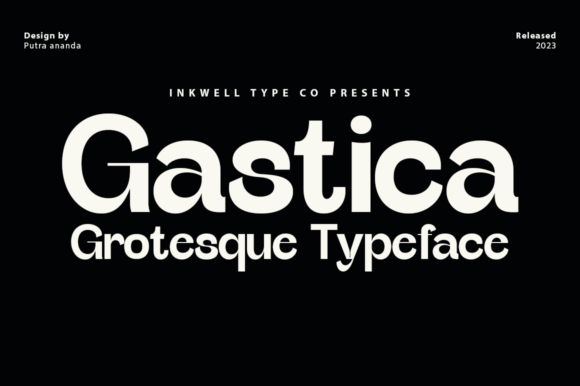
Gastica Font: Elevate Your Designs with a Touch of Elegance and Boldness
In the world of typography, a font can make or break a design. It’s the perfect blend of style, elegance, and personality that can elevate your project from ordinary to extraordinary. If you’re on the hunt for a font that exudes confidence, sophistication, and a dash of modern flair, look no further than Gastica Font. This stunning display font is crafted to turn heads, spark curiosity, and leave a lasting impression.
The Allure of Gastica Font
Gastica is an alluring and dazzling display font that boasts unique letterforms and a modern style, making it the perfect choice for designers and crafters looking to add a touch of glamour to their work. With boldness in every letter and an elegant style that strikes the perfect balance between strength and sophistication, Gastica is designed to make your message stand out in a crowded digital landscape.
Perfect for Attention-Grabbing Designs
Whether you’re working on a title, logo, or any other design element that needs to draw attention, Gastica Font is the perfect choice. Its bold and elegant style makes it ideal for a wide range of applications, from branding and advertising to packaging and digital media. With Gastica, you can create stunning designs that command attention, spark curiosity, and leave a lasting impression on your audience.
Flexibility at Its Finest
One of the standout features of Gastica Font is its versatility. Available in various variants and font weights, this incredible font provides flexibility in expressing your creativity. Whether you’re looking for a strong and bold look or a more subtle and elegant appearance, Gastica has got you covered. This flexibility makes it easy to adapt the font to different design contexts, ensuring that your message is conveyed with precision and style.
Key Features of Gastica Font
- Unique Letterforms: Gastica’s distinctive letterforms set it apart from other fonts, making it a standout choice for designers looking to create something truly unique.
- Modern Style: With its modern aesthetic, Gastica is perfect for designers who want to create fresh, contemporary designs that resonate with modern audiences.
- Bold and Elegant: This font combines boldness with elegance, making it suitable for a wide range of design applications.
- Multiple Variants and Weights: Gastica’s versatility is one of its strongest assets, allowing designers to experiment with different styles and weights to find the perfect fit for their project.
Why Choose Gastica Font?
Choosing Gastica Font for your design project is a decision that can elevate your work from ordinary to extraordinary. Here are just a few reasons why designers and crafters are falling in love with Gastica:
- Attention-Grabbing: Gastica’s bold and elegant style ensures that your designs grab attention and make a lasting impression.
- Versatile: With its multiple variants and weights, Gastica can be adapted to suit a wide range of design contexts and applications.
- Easy to Read: Despite its bold style, Gastica remains easy to read, making it perfect for titles, headings, and other design elements where clarity is key.
- Unique: Gastica’s unique letterforms ensure that your designs stand out from the crowd, giving you a competitive edge in a crowded digital landscape.
In conclusion, Gastica Font is a game-changer for designers and crafters looking to elevate their work with a touch of elegance and boldness. Its unique letterforms, modern style, and versatility make it the perfect choice for attention-grabbing designs that leave a lasting impression. Whether you’re working on a title, logo, or any other design element, Gastica Font is sure to exceed your expectations. So why wait? Discover the power of Gastica Font today and take your designs to new heights!